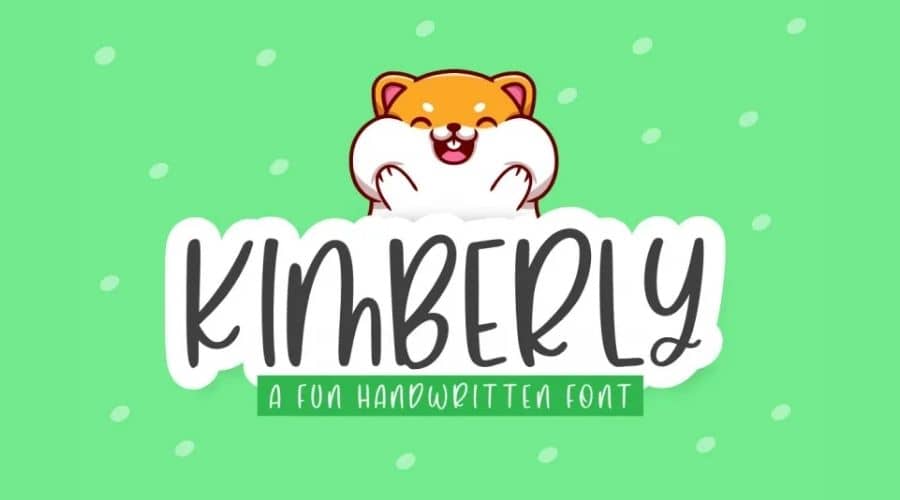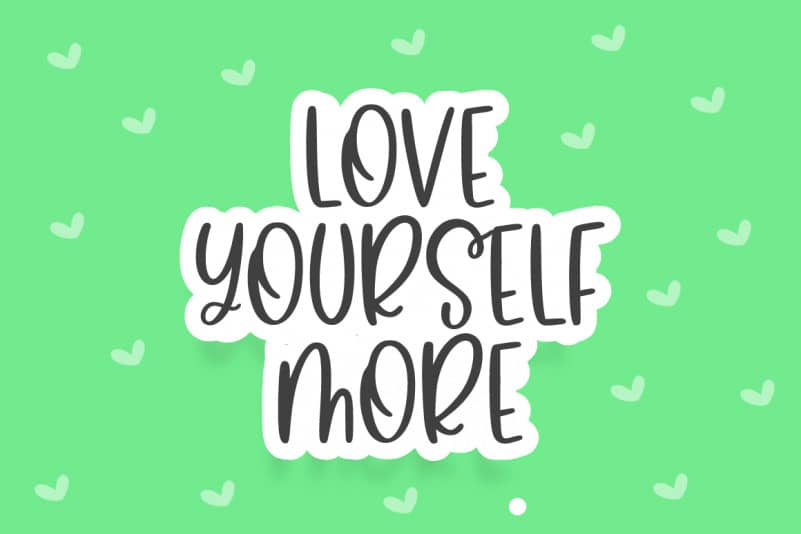
Kimberly is a high-quality Script, Calligraphy typeface. Rachma BT produced and shared the font, which is free to download and use for personal purposes. All uppercase and lowercase letters and a few special characters are included in the font. Kimberly also features a different type of flying vehicle. Alternative flying machines can be found in Font Book or Windows Character Map. Converting the gorgeous typeface to a web font is simple.
Kimberly font is a modern calligraphy script font that adds authenticity to your design. Signatures, weddings, invites, cards, stationery, logos, typographic phrases, and more may all benefit from this design. The font also looks great on any type of cosmetics brand banner and billboard. A font is also a great option for any type of Script project as it is a beautiful Script font itself with the touch of unique characters.